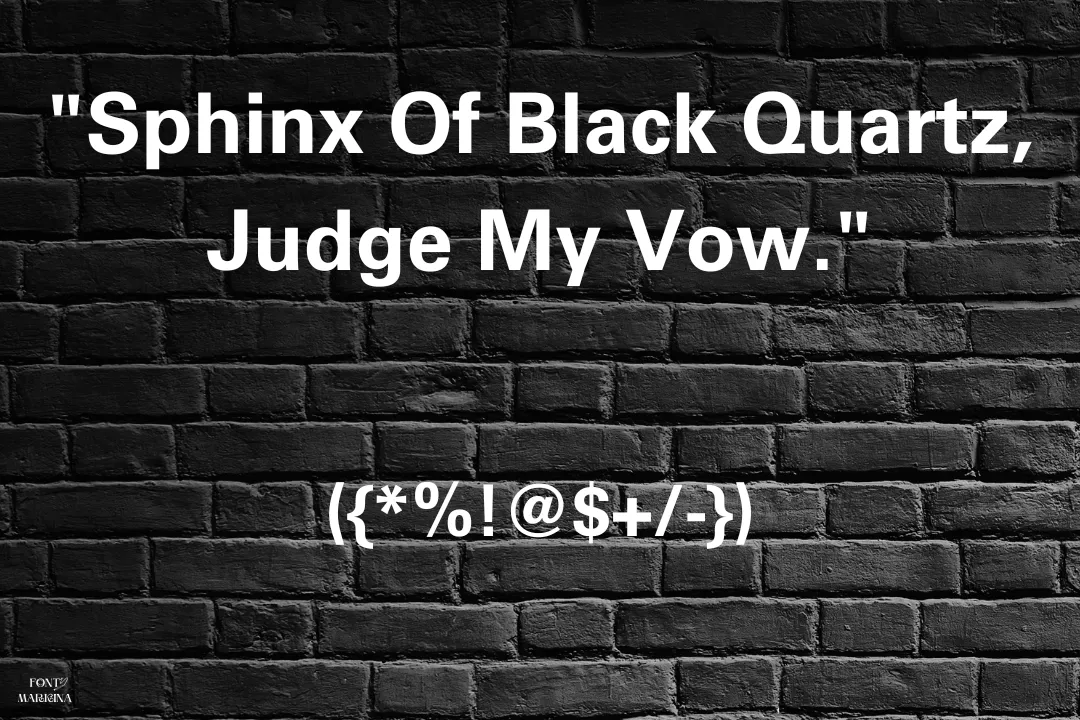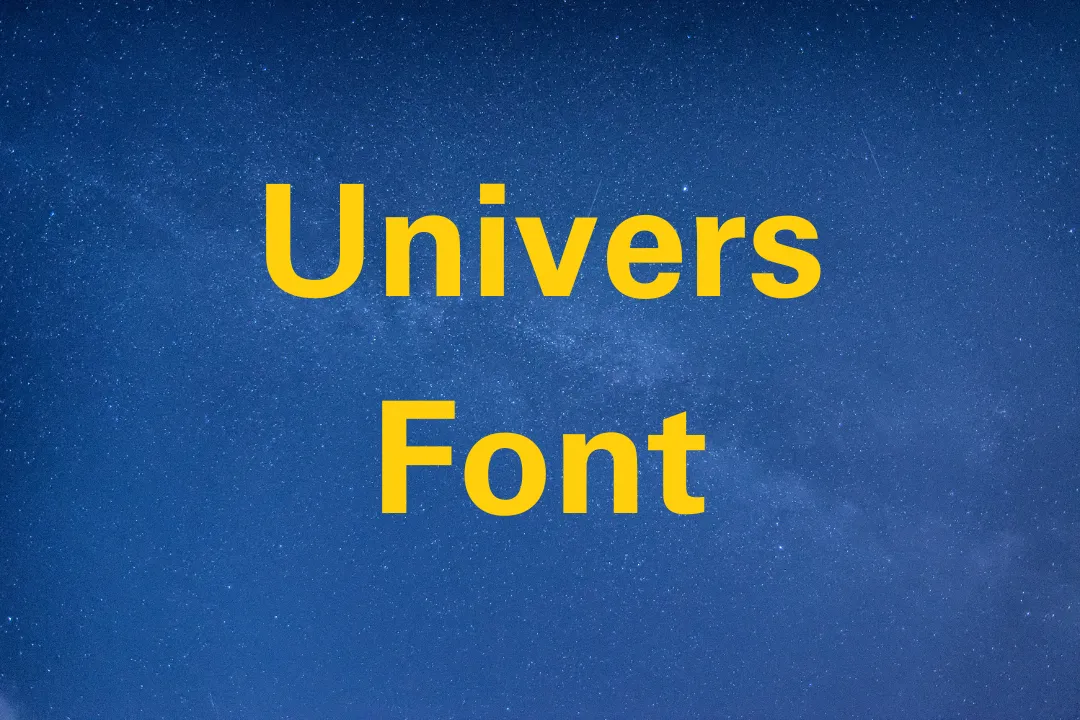
Univers Font is a modern typeface designed by Adrian Frutiger in 1957. It is a sans-serif font, which means it does not have the small projecting features called “serifs” at the end of strokes. The design of the Univers typeface was inspired by the Akzidenz-Grotesk Font, but Frutiger aimed to create a more consistent and harmonious design.
Univers typeface is known for its clean and geometric shapes, as well as its wide range of weights and widths. It is widely used in both digital and print design and is considered a classic typeface in the world of typography. It is well suitable for Adobe. There are many alternatives to this family.
This is available in a variety of weights, from ultra-light to black, and widths, from ultra-condensed to extended. This range of variations allows for a great deal of flexibility in design and makes this font suitable for a wide range of uses, such as headlines, body text, and display use. Univers also has a wide range of characters, including small caps, fractions, and various symbol characters.
The generator tool of this family is very effective. In addition to its versatility, it is also praised for its legibility, making it a popular choice for use in body text. Frutiger’s design is also considered to be highly consistent, with the various weights and widths having a strong family resemblance, which helps to maintain a cohesive look and feel across different uses and settings.
About Designer
Adrian Frutiger was a Swiss typeface designer and typographer, born in 1928. He is known for creating some of the most popular and widely used typefaces of the 20th century. He began his career as an apprentice in a type foundry and later studied at the Zurich School of Arts and Crafts.
Frutiger also designed other popular typefaces such as Avenir, Ondine, and Serifa. He was awarded numerous awards for his work including the TDC Medal from the Type Directors Club, the TDC Typeface Design Award, and the lifetime achievement award from the Association Typographique Internationale (ATypI). He passed away in 2015, but his work and legacy continue to inspire designers around the world.
Uses of Univers Font
This is a very versatile typeface and can be used in a wide range of design projects. Some specific uses include:
- Corporate identities and branding: Univers’ clean and geometric shapes, along with its consistent design, make it a popular choice for use in corporate identities and branding. Its wide range of weights and widths allows for flexibility in design, making it suitable for use in everything from logos to business cards and letterheads.
- Print design: It is widely used in print design, particularly in book design and magazine layout. Its legibility makes it a good choice for use in body text, while its range of weights and widths allows for flexibility in the design of headlines and other display use.
- Advertising: It is clean, modern look makes it a popular choice for use in advertising campaigns, particularly in print ads and billboards.
- Web design: This typography is widely used on the web as well, particularly for headings and other display use. Its legibility and versatility make it a popular choice for use on a wide range of websites.
- Education and research: It is a popular choice for academic publications, research papers, and other educational materials. Its legibility and wide range of weights and widths make it suitable for use in everything from textbooks to academic journals.
In general, Univers is a typeface that adapts to the needs of the project and the designer, it’s a classic and reliable typeface that can be used in any context. All of you can also make the pairing of this family with Helvetica Neue font and notice its wonderful results.
Univers Font View
| Name | Univers Font |
| Designer | Adrian Frutiger |
| Date | 1957 |
| Style | Sans Serif |
| Foundry | Deberny & Peignot Linotype |
Similars to Univers Font
- Futura PT Font: a geometric sans-serif font designed by Paul Renner in 1927.
- Akzidenz-Grotesk Font: an early sans-serif typeface, designed in 1896 by the Berthold Type Foundry, which was the inspiration for Univers.
- Helvetica Font: a widely used neo-grotesque sans-serif font designed by Max Miedinger in 1957.
- Gill Sans Font: a humanistic sans-serif font designed by Eric Gill in 1926.
- Avant Garde Font: a geometric sans-serif font designed by Herb Lubalin in 1970.
- Franklin Gothic Font: a grotesque sans-serif font designed by Morris Fuller Benton in 1902.
- DIN Font: a widely used geometric sans-serif font that was originally created for use in German engineering and technical documents.
Who designed the Univers typeface?
This typeface was designed by Adrian Frutiger in 1957.
What are the main characteristics of the Univers typeface?
The main characteristics of the font include clean and geometric shapes, a wide range of weights and widths, and legibility.